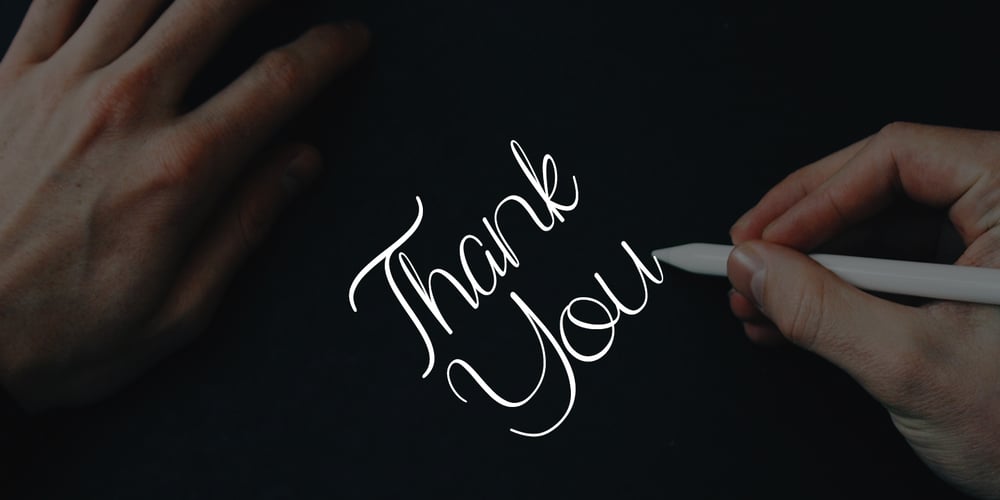
Phanthomim Font Family was designed by Estiko Priyanto and published by TSA Creative. Phanthomim contains 1 styles and family package options. Phanthomim is a Beautiful Script font. It is inspired by lovely and beautiful things in life and looks modern and awesome in many way to your latest project. Phanthomim is perfect for logos & branding, photography, invitation, product designs, stationery, wedding designs, labels, product packaging, special events or anything that need special taste. If you have any queries, questions or issues please don’t hesitate to contact us direct.